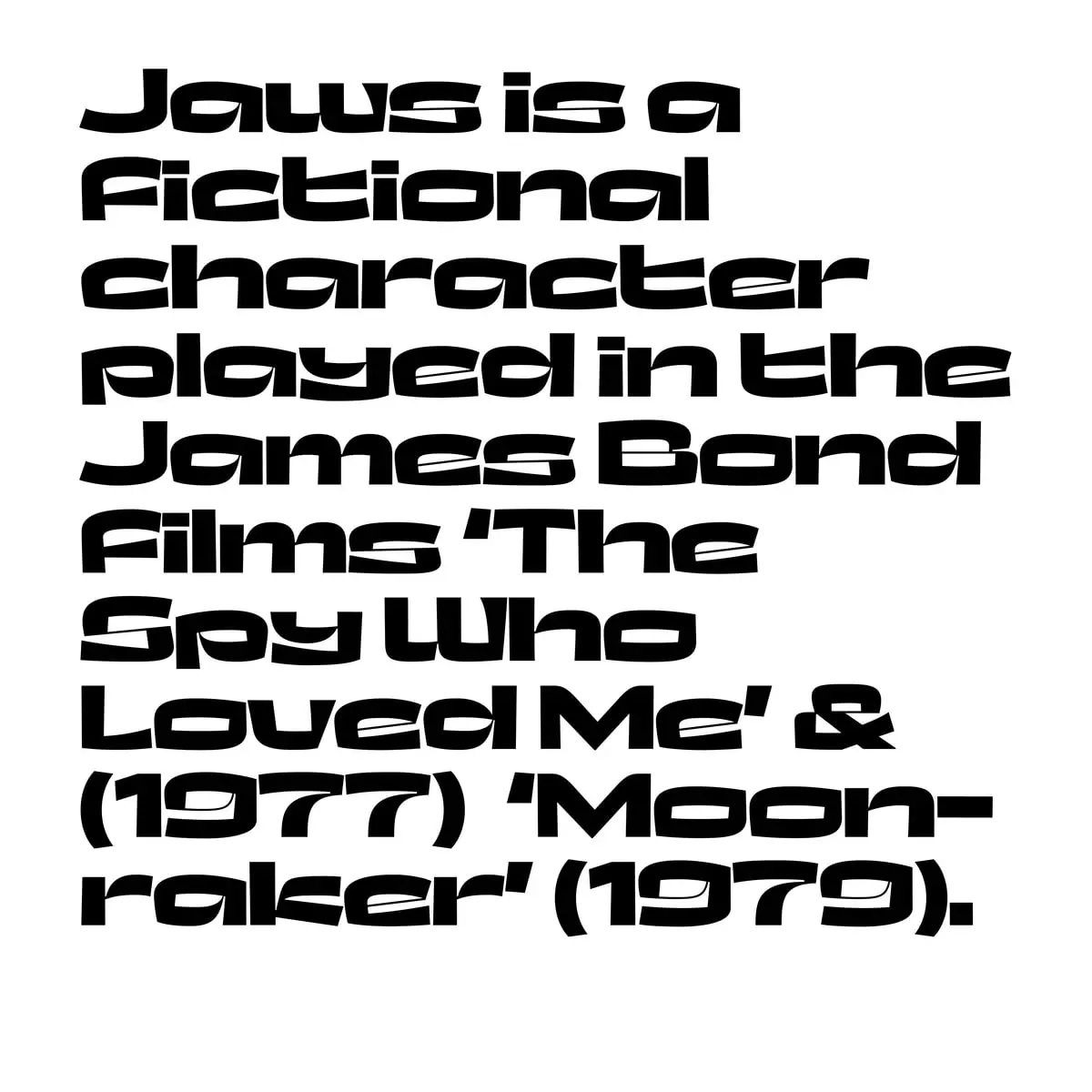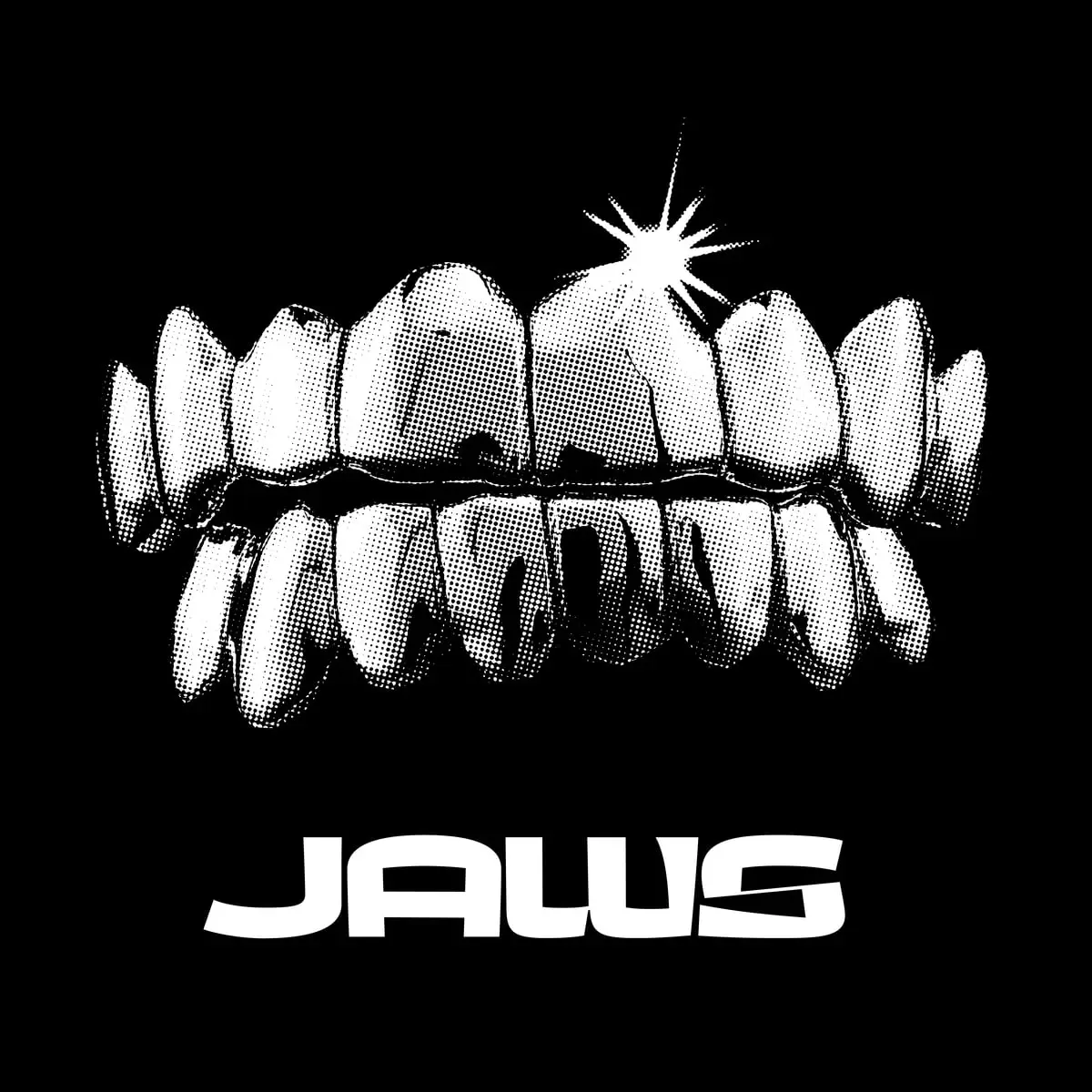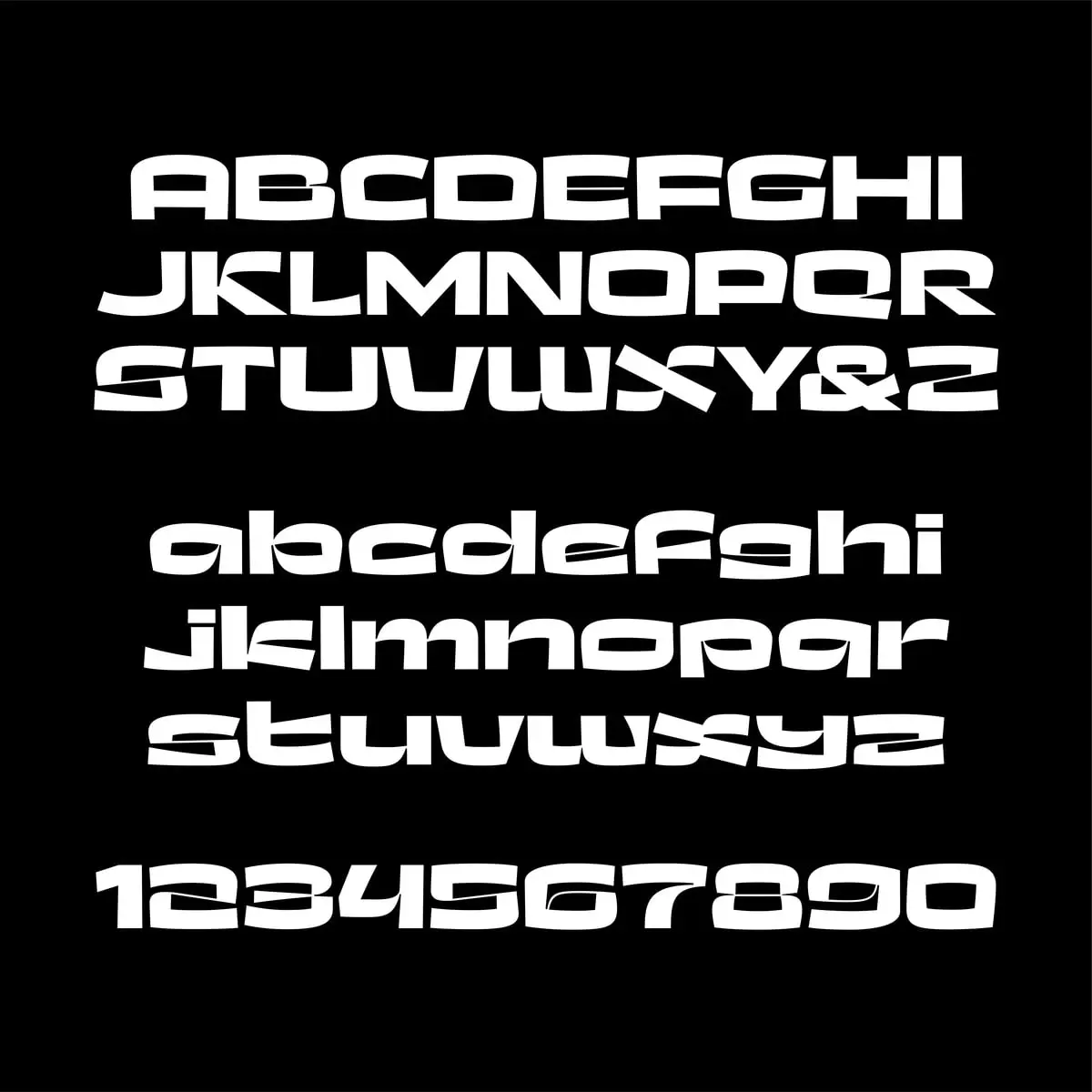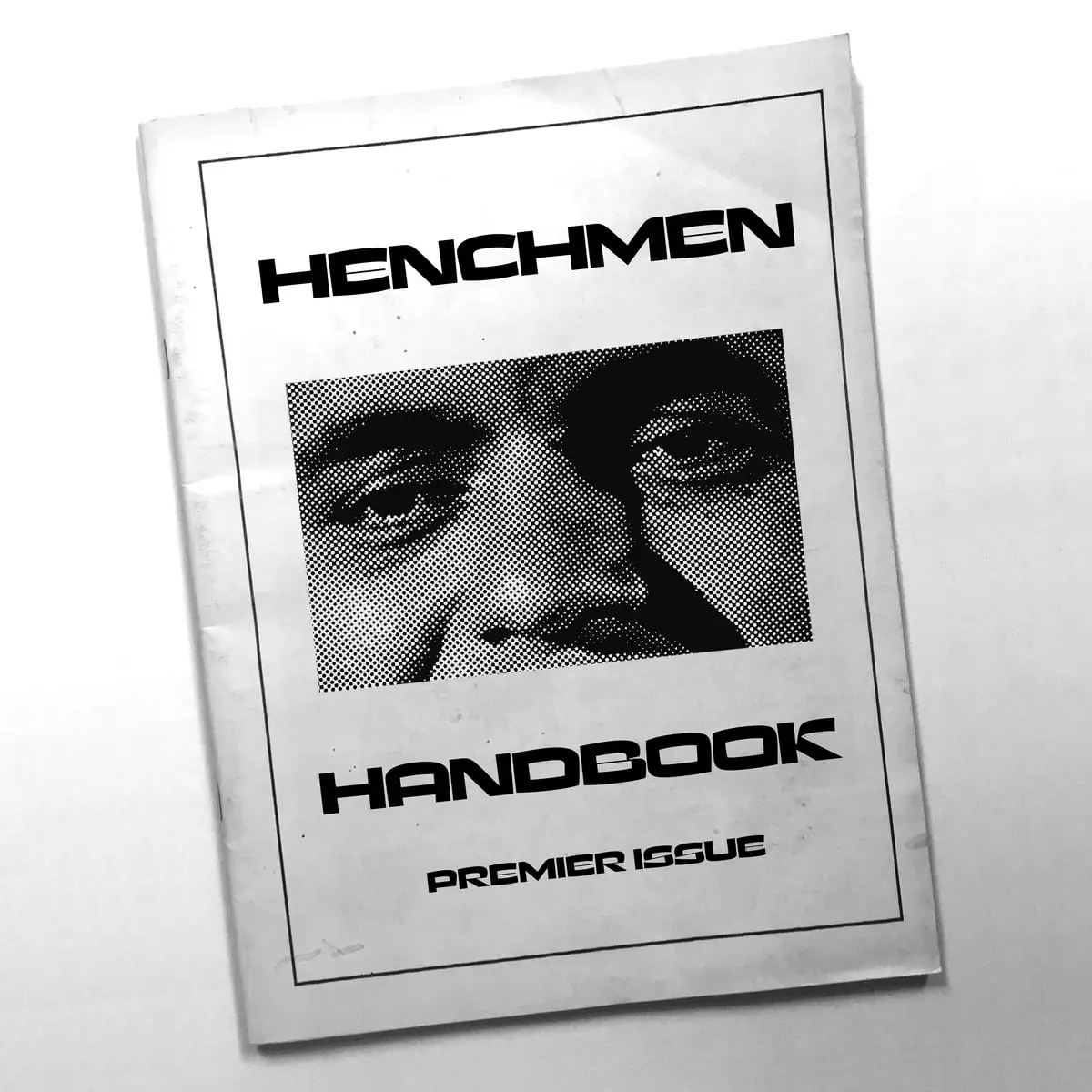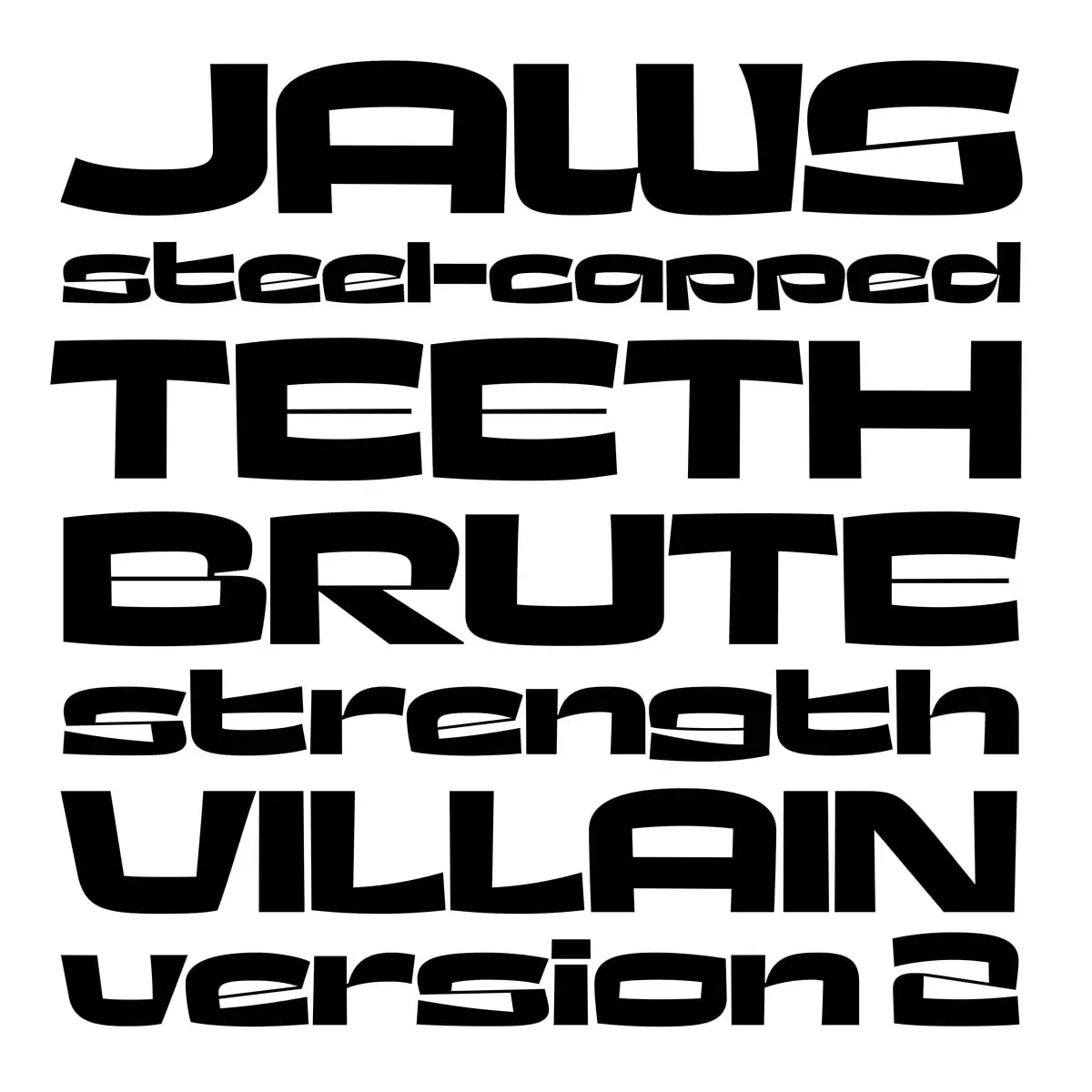
Jaws Font
The Jaws Font is a striking typeface that captures the essence of adventure and suspense. With its bold, sharp edges and unique character design, this font is perfect for any project that aims to evoke excitement and intrigue.
• Includes uppercase and lowercase letters, numbers, and special characters
• Designed for both display and text use
• Style: Display, Sans-serif